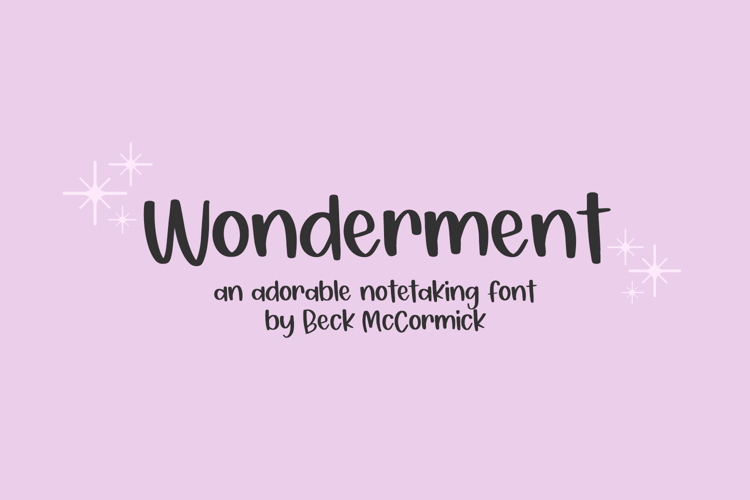
Wonderment Sans is an adorable hand lettered font. It’s neat & tidy appearance makes it the perfect fit for your digital planner or note-taking app. It’ll also be a perfect fit for your cute home decor projects, your Cricut or Silhouette machine, logo & branding projects, marketing materials, social media graphics, & more.